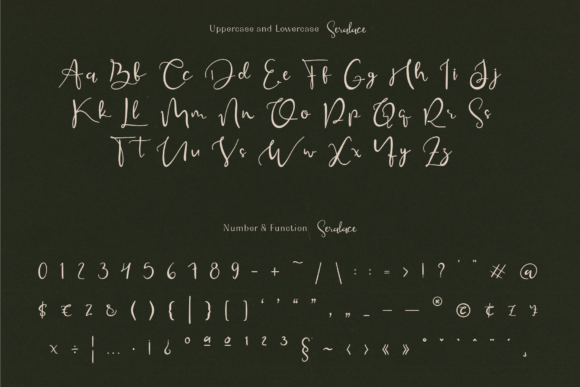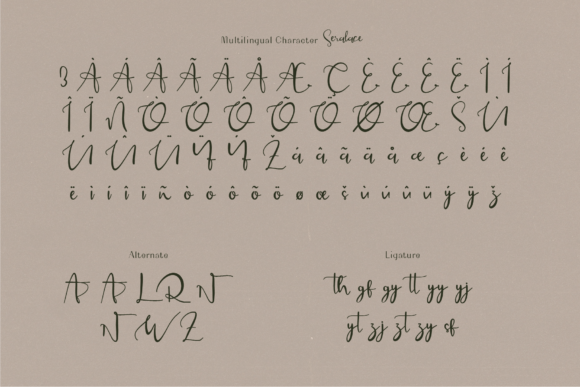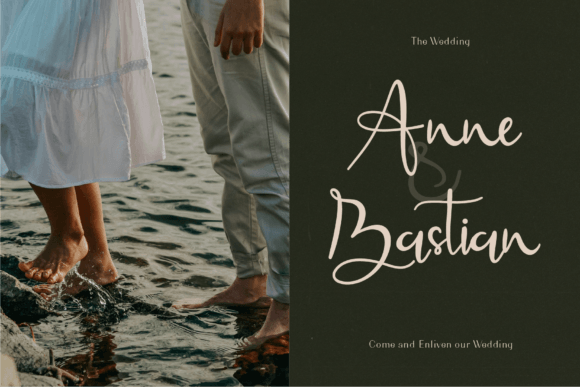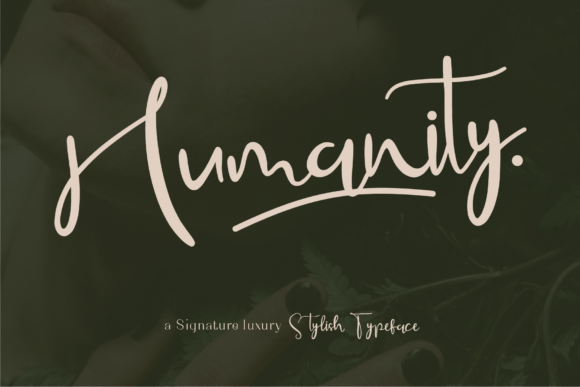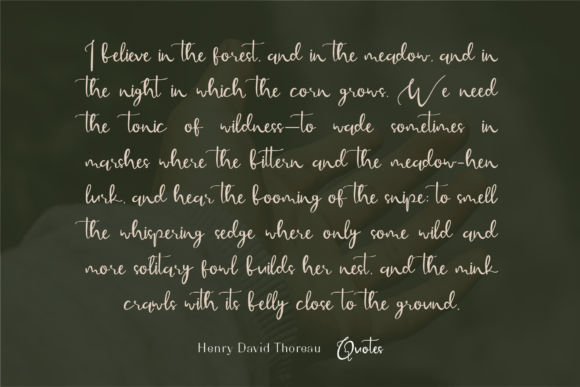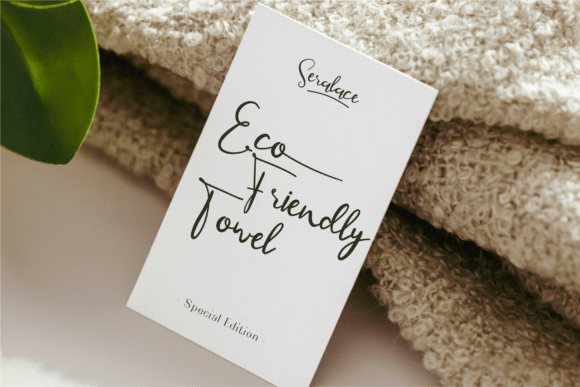
Introduction to Seralace Font
As designers, we’ve all been there – staring at a blank canvas, eager to bring our creative vision to life. But sometimes, the right font can be the difference between a good design and a great one. That’s where the Seralace Font comes in – a luxurious handwritten signature font that exudes elegance and modern sophistication. Its fluid, gracefully arranged strokes and well-crafted balance make it a valuable addition to any designer’s toolkit.
Whether you’re working on a high-end branding project or a romantic wedding invitation, the Seralace Font is the perfect design resource to add a touch of refinement and sophistication. With its transparent background and high-quality design, this font is a free download that’s sure to elevate any creative project. In this article, we’ll delve into the world of the Seralace Font and explore its unique features that make it a must-have for designers.
Key Features of Seralace Font
• High-quality design resource ideal for creative projects, offering a unique and stylish aesthetic.
• Features a transparent background, allowing for seamless integration into complex design compositions.
• Designed with a focus on versatility, making it suitable for a wide range of creative projects, from branding to digital art.
• Includes a range of characters, including uppercase and lowercase letters, numbers, and punctuation marks, making it a comprehensive design resource.
Honest Review: Seralace Font
I recently had the chance to work with the Seralace Font, and I must say it’s been a game-changer for my design projects. This high-quality font is a great addition to any design resource collection.
• ✨ The font’s elegant and modern design makes it perfect for creative projects that require a touch of sophistication.
• ✨ The font is highly customizable, allowing you to easily adjust the size, color, and style to suit your needs.
• ⚠️ The font doesn’t come with a transparent background, which can make it difficult to use with certain design elements.
• ⚠️ The font’s high quality also means it can be quite heavy, which can affect the overall performance of your design.
Overall, I’m thoroughly impressed with the Seralace Font. It’s a fantastic resource for designers looking to add a touch of elegance to their creative projects. With its high quality and customizable design, it’s definitely worth adding to your design resource collection.
The Seralace Font is a high-quality design resource ideal for creative projects. It features a transparent background, making it versatile and easy to use.
Tips for Getting the Most Out of Seralace Font
To get the most out of the Seralace Font, experiment with different font sizes, colors, and combinations to find the perfect fit for your design project.
The Seralace Font is ideal for a variety of creative projects, including:
• Graphic design
• Branding and logos
• Social media graphics
• Presentations and reports
Alternatives to Seralace Font
Montserrat is a popular, high-quality sans-serif font perfect for creative projects that require a modern and clean design. It’s ideal for use on a transparent background and can be easily customized to suit various design needs.
Montserrat is similar to Seralace Font in its sleek and minimalist design, but it offers more versatility and a wider range of font weights. While Seralace Font is often used for headings and titles, Montserrat can be used for both headings and body text.
Open Sans is a free download font that’s perfect for designers looking for a high-quality sans-serif font. It’s designed to be highly legible and works well on both light and dark backgrounds. Open Sans is ideal for use in body text and can be paired with other fonts for a unique design.